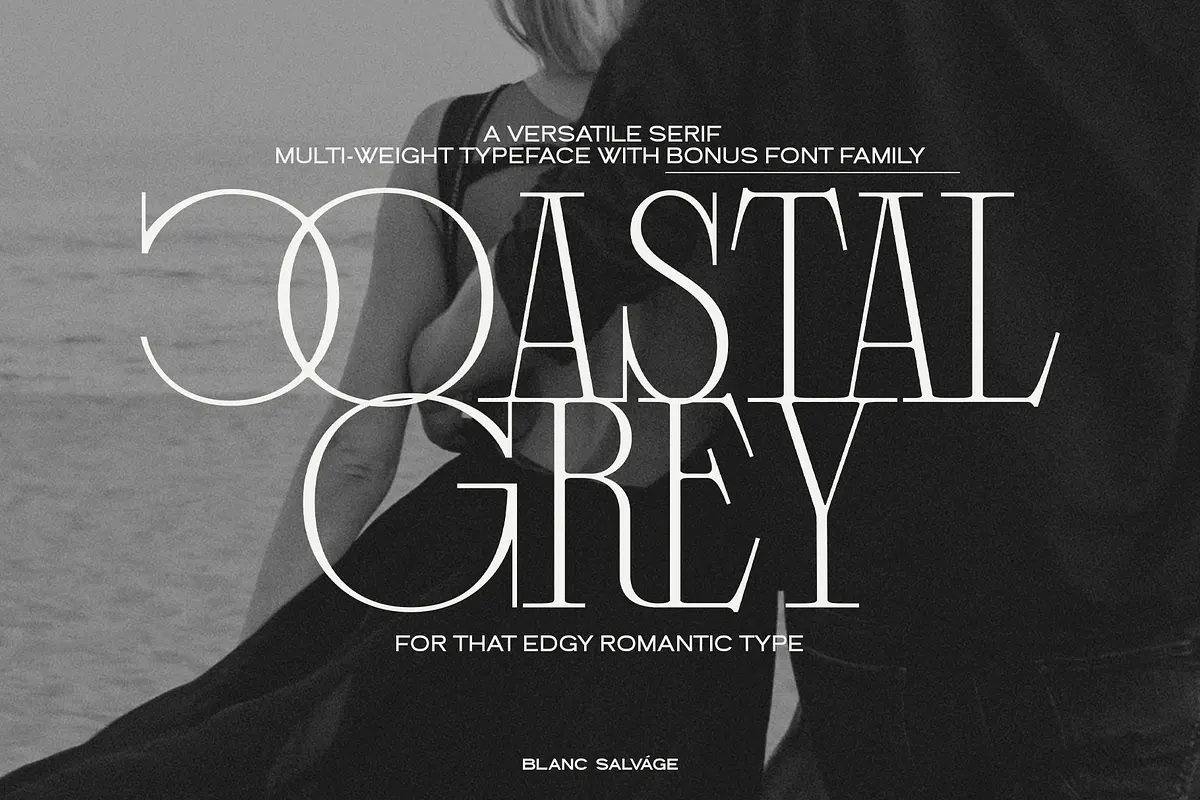
Coastal Grey Serif is a distinctive serif font family comprising four fonts, each offering a unique blend of short and long serifs. Designed by Blanc Salváge, this font family is inspired by the designer's personal experiences and is crafted to add versatility and elegance to your design projects.
• Font Styles: The family includes four font files, each featuring a combination of long and short serifs in light and regular weights.
• Character Set: Each font file contains uppercase and lowercase letters, numbers, punctuation, extended European language support, alternate characters, and ligatures, totaling over 200 glyphs.